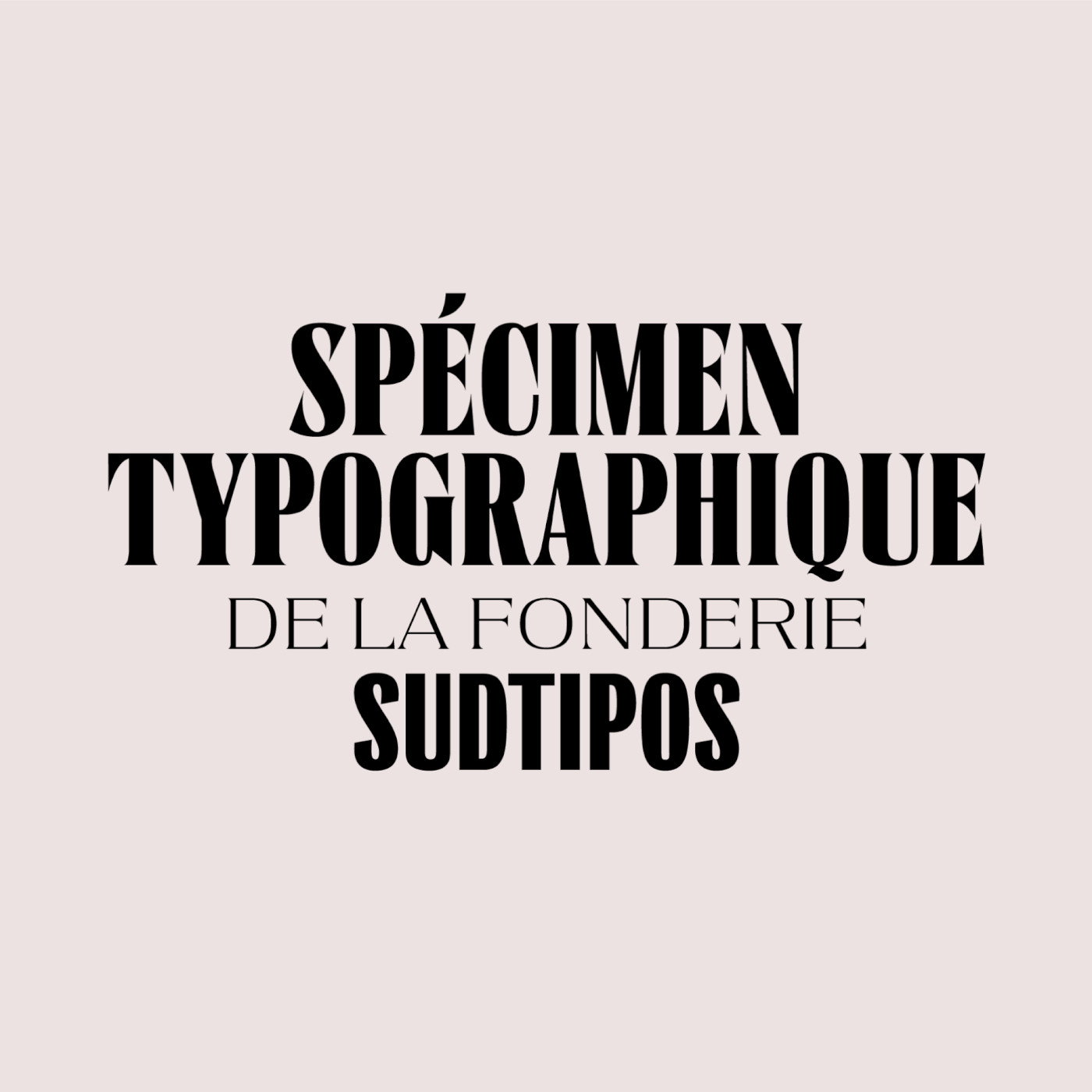
25 of Our Favorite New Typefaces of 2020
Practical. Impractical. Experimental. Expressive.
We saw a lot of type that we loved in 2020—and throughout the year, as always, we catalogued it, notably in our Type Tuesday column.
As we head into 2021, we’ve rounded up 25 of our favorite faces—a highly subjective list, as all such lists are, given structure by alphabetical order. (Speaking of subjectivity: As for PRINT’s own awesome typeface, Role—we’d have featured it, had it not been released in 2019.)
Herewith: 25 of our favorites new typefaces from 2020. (And hey: If you forgot to buy a little something for the designer in your life this holiday season, it’s worth mentioning that fonts are a fantastic gift, and require no shipping …)
Apothicaire
Argentinian foundry Sudtipos routinely turns out top-notch type—and their latest release, Apothicaire, is indeed just the medicine we need for the winter blues.
While the name may be French for “apothecary,” Alejandro Paul and his team found inspiration in an antique German design dating back to the late 19th century.
Spanning three widths and five weights, the resulting typeface maintains unexpected quirks and delights and is capable of a wide range of expressions.
Moreover, as Sudtipos details, “An elegant small caps set, a variety of ball terminals and delicate swashes, as well as the possibility to choose from many alternates are also included in the OpenType features.”
To bring a fitting set of specimens to life, Sudtipos turned to Lucila Perini Studio, whose work you can see below.
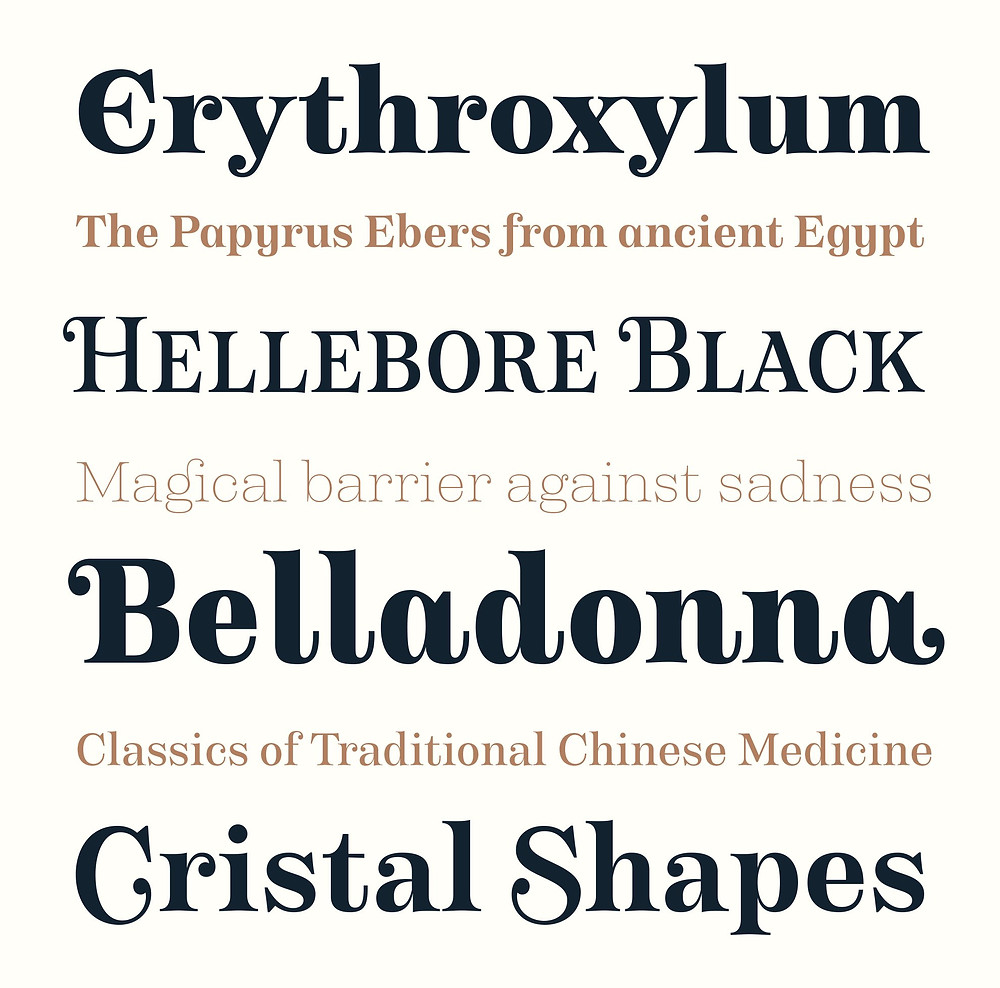
Atkinson Hyperlegible
The coronavirus pandemic is clearly at the forefront of all of our minds—but there are countless other healthcare puzzles going on at any given time around the world. One is the low-vision paradox: Despite a decrease in blindness worldwide, people are now living long enough to lose their vision.
So what does that mean for printed materials—and how can designers create fonts that are easily read by the growing population of low-vision consumers?
Enter Atkinson Hyperlegible.
Applied Design Works in New York City partnered up with the Braille Institute to develop this easy-to-read typeface named after the institute’s founder, Robert J. Atkinson.
“People may be surprised that the vast majority of the students who come to Braille Institute have some degree of vision,” Sandy Shin, the institute’s vice president for marketing and communications, told All About Vision. “They're not 100% blind.” Meaning a majority of Braille Institute clients also don’t rely on the dot-based language.
For years now, it seemed the only solution for low-vision clients and printed materials was magnification. But with its careful design, Atkinson Hyperlegible is making a major impact.
According to the Braille Institute’s website, “For low-vision readers, certain letters and numbers can be hard to distinguish from one another. … Atkinson Hyperlegible differentiates common misinterpreted letters and numbers using various design techniques.” By way of recognizable footprints and exaggerated forms, this new typeface is already making a difference and bringing home accolades, including Fast Company’s Innovation by Design Award.
The face—a traditional grotesque sans serif at its core—is free to download and comes with four fonts in two weights, accents supporting 27 languages, and 1,340 glyphs. Visit the Braille Institute’s website to learn more, and download Atkinson Hyperlegible here.
BC Retroduktor
Viktor Mizera’s BC Retroduktor is a typeface rooted in a time and place—in more ways than one.
First, it celebrates Akihiko Seki’s Akilines, originally released in the early 1970s. Though there have been different reissues over the years, Briefcase Type Foundry’s BC Retroduktor involves more than 100 masters, producing 24 static fonts and four variable fonts.
And then there’s the heavy influence of the multisensory disco scene of the day. After the introduction of smoke machines, lasers and 3D lighting brought clubs to a whole new level—and the rigs eventually became automated. As the foundry notes, “these movements—awkward, not exactly graceful, but still quite precise—are the ones Retroduktor copies in its morphology.”
Moreover:
The disco scene at the time had become a safe space where the gay community could find a sense of self-confidence. It was also a platform for a new sexual liberation. Gloria Gaynor’s megahit ‘I Will Survive’ was both an expression of female power and an anthem of the gay scene in 1978. It was music that worked in the clubs, but to a certain extent it also worked in broad daylight. Both metaphorically and literally. Because the lights didn’t slice and blink into one’s eyes, it did not dazzle, but drew visitors through the room. It helped them. Figuratively speaking, it showed the way through the darkness—through all the inner confusion—and it could be followed.
The foundry notes that the typeface is an ideal fit for motion and advertising—and the specimens below indeed back that up.
Case
As Fontwerk puts it: “‘The Curious Case of Erik Spiekermann,’ ‘For lowercase, uppercase, for every case’ … There are puns aplenty for a typeface with this particular name. But we’ll spare you any more and concentrate on the facts.”
A typeface that would indeed look good everywhere from packaging to editorial applications, Paul Eslage’s design also features 680 glyphs in each style.
Stapel
Meet Stapel—a sharp new contemporary trio of subfamilies with seven weights each … and a nice array of possible applications.
Designed by Alexander Lubovenko and released by Paratype, from headlines to text, these specimens show that Stapel would indeed be equally at home on a market report as it would a film title card.